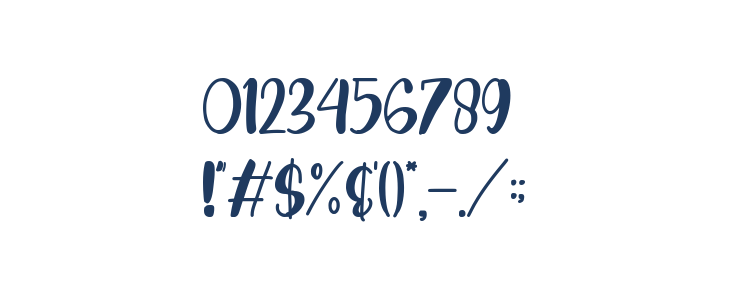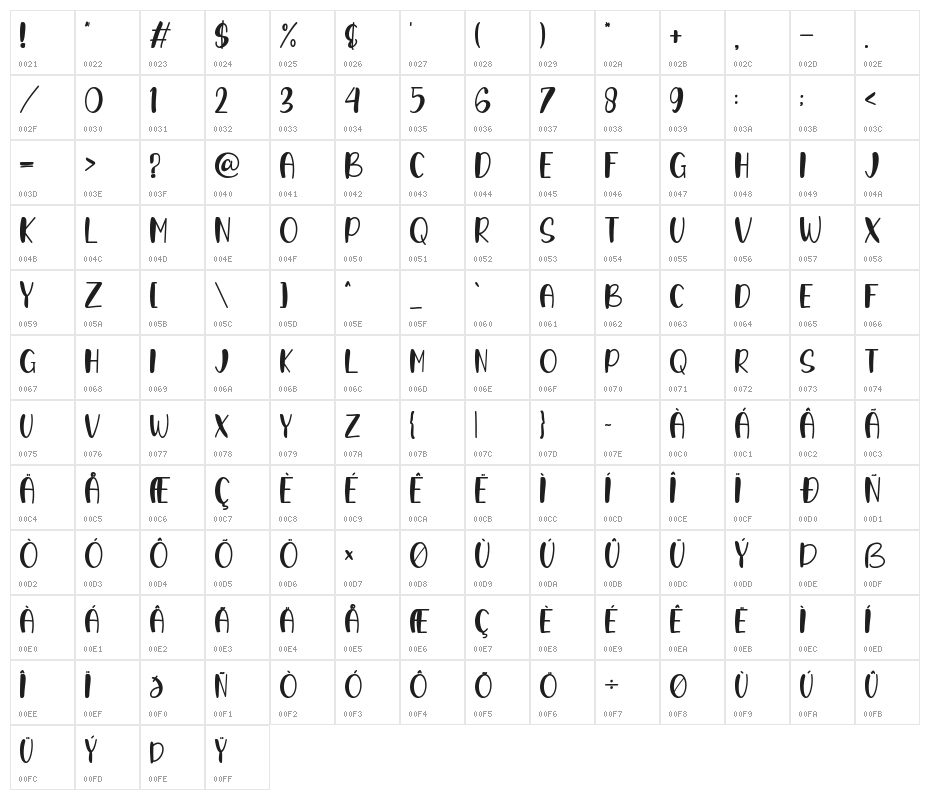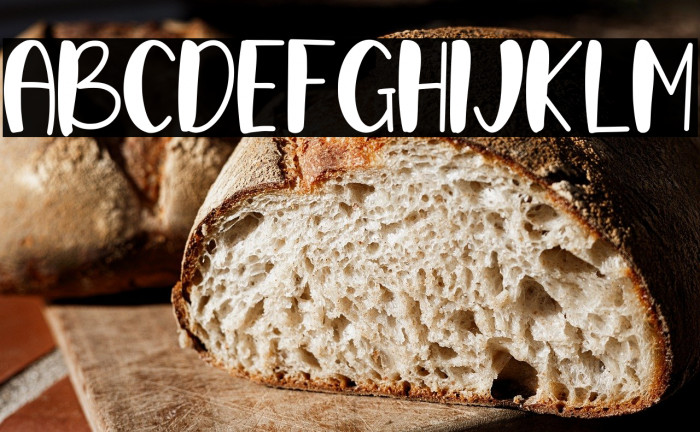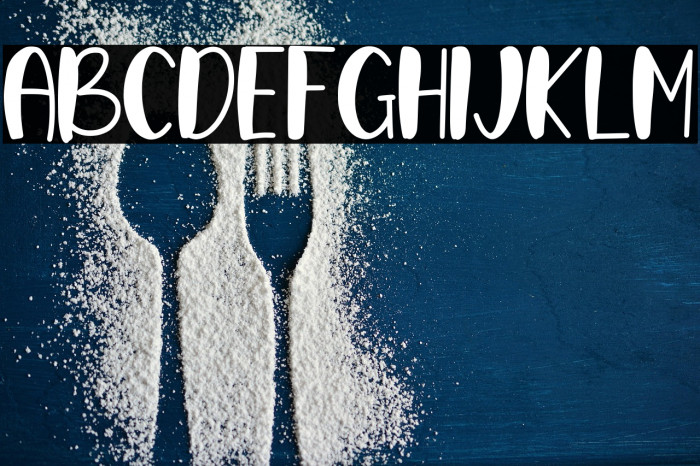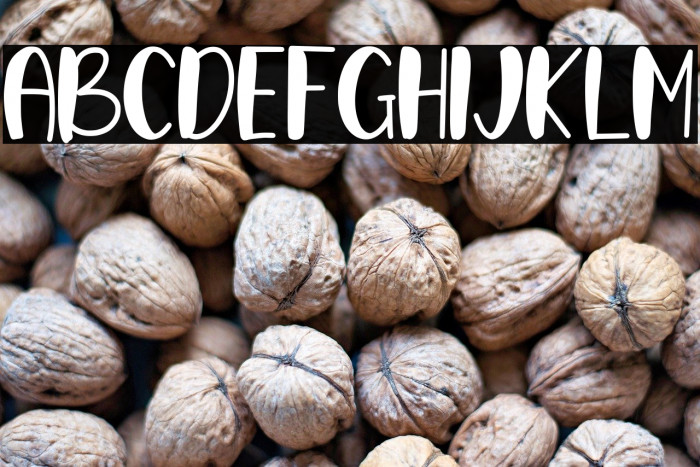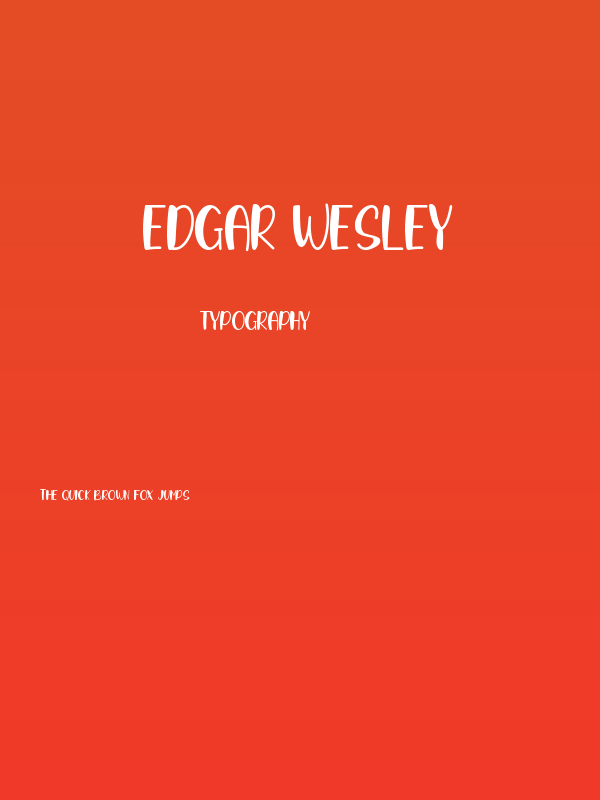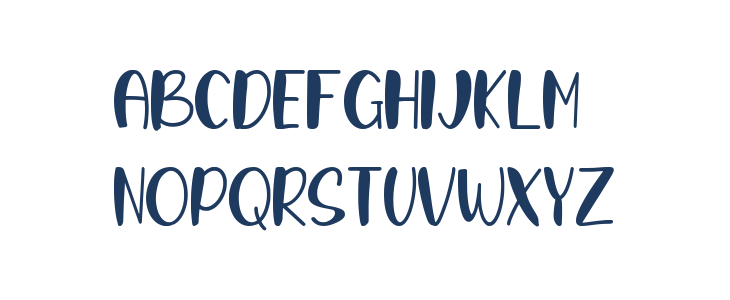
Edgar Wesley Font
Edgar Wesley Description
This font features a playful and energetic style with bold, rounded strokes that give it a friendly and approachable appearance. The characters are slightly condensed, adding a sense of modernity and uniqueness. The uppercase letters are tall and assertive, while the lowercase letters maintain a consistent flow, enhancing readability. The numbers are well-proportioned, and the special characters are designed to complement the overall aesthetic. This font is ideal for projects that require a touch of creativity and fun, making it suitable for branding, advertising, and social media graphics.
Proposed ProjectsIdeal for branding, advertising, social media graphics, and creative projects.